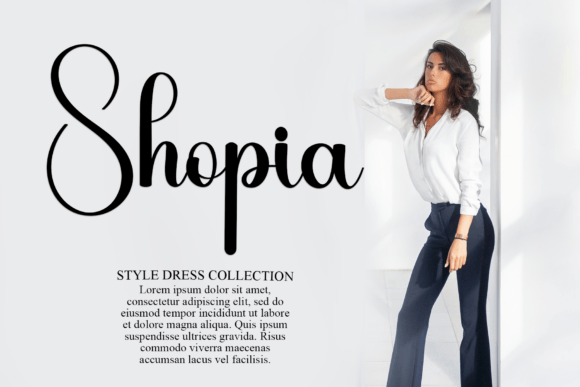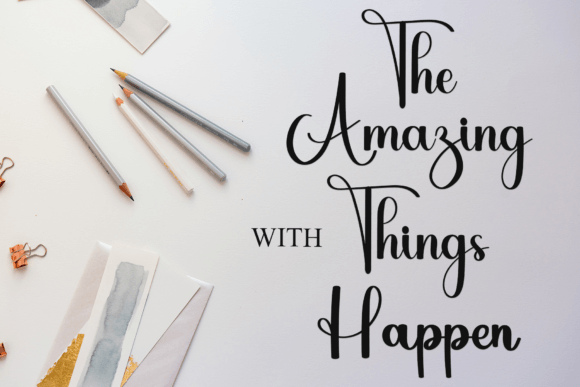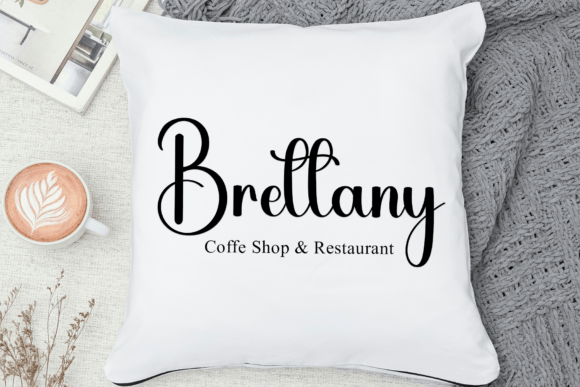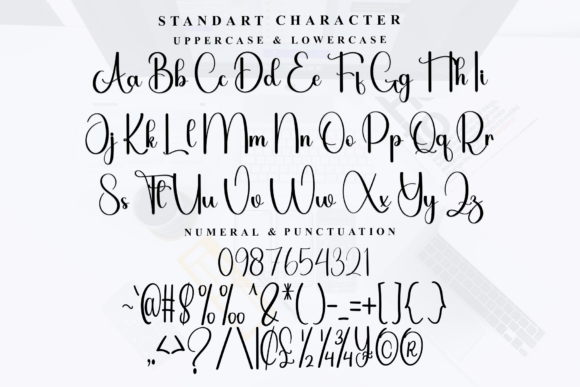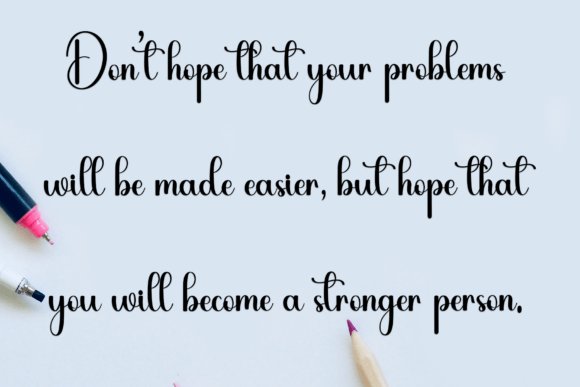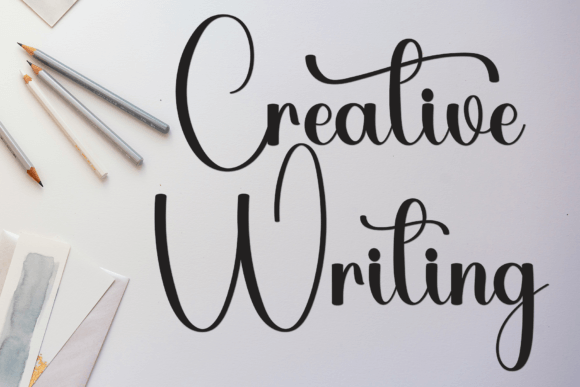
Introducing Authentic Signature Font: Elevate Your Designs with Timeless Elegance
Are you tired of using generic fonts that lack personality and sophistication? Look no further than the Authentic Signature Font, a stunning and elegant typeface that brings a touch of classic calligraphy to your modern designs. Inspired by timeless classics, this font boasts a contemporary atmosphere and impeccable form, making it perfect for designers and crafters seeking to add a level of refinement to their projects.
What Makes Authentic Signature Font So Special?
The Authentic Signature Font is a masterpiece of typographic design, carefully crafted to provide a balanced and varied visual experience. With its PUA (Private Use Area) encoding, you can easily access a wide range of glyphs and ligatures, allowing you to create unique and eye-catching text arrangements. Whether you’re working on a logo, branding materials, or digital projects, this font is designed to enhance the beauty of your work.
Key Features of Authentic Signature Font
- PUA Encoded: Enjoy effortless access to a vast array of glyphs and ligatures, giving you the creative freedom to experiment with different text styles.
- Timeless Classic Inspiration: Draw inspiration from traditional calligraphy, with a modern twist that ensures your designs stay fresh and contemporary.
- Balanced and Varied: The font’s carefully crafted design ensures that your text looks beautiful and harmonious, with a perfect balance of elegance and legibility.
- Elegant and Sophisticated: Add a touch of luxury to your designs with the Authentic Signature Font’s refined and polished aesthetic.
The Authentic Signature Font is an ideal choice for designers and crafters working on a wide range of projects, including:
- Logos and Branding: Create a lasting impression with a unique and memorable logo that showcases your brand’s personality.
- Digital Projects: Elevate your website, social media, or digital marketing materials with a sophisticated font that adds a touch of elegance.
- Stationery and Print Materials: Add a level of refinement to your business cards, letterheads, and other print materials.
- Crafting and DIY: Use the Authentic Signature Font to create beautiful and eye-catching titles, headings, and text arrangements for your crafting and DIY projects.
Tips for Using Authentic Signature Font
To get the most out of the Authentic Signature Font, try the following tips:
- Experiment with Ligatures: Take advantage of the font’s PUA encoding to create unique and interesting text arrangements using ligatures.
- Mix and Match: Combine the Authentic Signature Font with other fonts to create a visually appealing contrast and add depth to your designs.
- Play with Size and Color: Use the font in different sizes and colors to create visual hierarchy and add emphasis to your text.